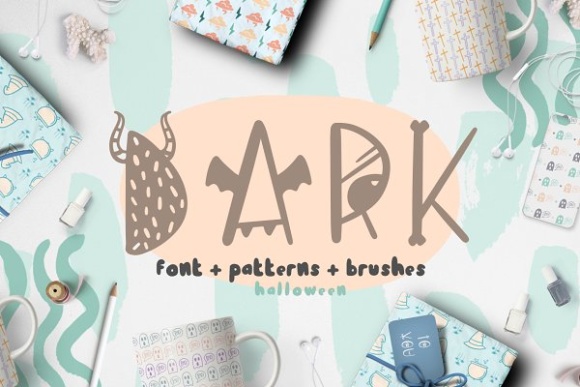
Dark Font: The Ultimate Companion for a Spooktacular Halloween
October is finally here, and we all know what that means: Halloween! The spookiest and most thrilling time of the year is just around the corner, and what better way to get into the spirit than with a font that’s as dark and playful as the holiday itself? Introducing Dark Font, a playful and personality-packed typeface that’s perfect for creating eerie, yet fun and festive designs.
What is Dark Font?
Dark Font is a unique and creative typeface that’s designed to bring a touch of darkness and whimsy to your designs. With its bold and edgy aesthetic, this font is perfect for creating eye-catching and memorable designs that are sure to stand out. Whether you’re designing a spooky Halloween poster, a creepy flyer, or a haunted website, Dark Font is the perfect companion to help you set the mood.
Amazing Features of Dark Font
- Playful and Personality-Packed: Dark Font is designed to bring a touch of playfulness and personality to your designs. With its bold and edgy aesthetic, this font is perfect for creating eye-catching and memorable designs.
- Amazing Patterns: Dark Font comes with a range of amazing patterns that are perfect for adding a touch of texture and interest to your designs. From spooky cobwebs to creepy crawlies, these patterns are sure to add an extra layer of depth and visual interest to your designs.
- Illustrator Brushes: Dark Font also comes with a range of Illustrator brushes that are perfect for adding a touch of whimsy and creativity to your designs. With these brushes, you can create everything from spooky silhouettes to creepy critters.
- Doodle Font: And if that’s not enough, Dark Font also comes with a doodle font that’s perfect for adding a touch of playfulness and personality to your designs. With this font, you can create everything from quirky headings to fun and playful text.
Why Choose Dark Font?
So why choose Dark Font for your Halloween designs? Here are just a few reasons why this font is the perfect choice:
- Unique and Creative: Dark Font is a unique and creative typeface that’s designed to help you stand out from the crowd. With its bold and edgy aesthetic, this font is perfect for creating eye-catching and memorable designs.
- Easy to Use: Dark Font is easy to use and comes with a range of features that make it simple to get started. Whether you’re a seasoned designer or just starting out, this font is perfect for anyone looking to add a touch of darkness and whimsy to their designs.
- Perfect for Halloween: Dark Font is specifically designed with Halloween in mind. With its spooky and playful aesthetic, this font is perfect for creating designs that are sure to get you in the mood for the holiday.
Design Tips for Using Dark Font
Here are a few design tips to help you get the most out of Dark Font:
- Experiment with Patterns: Dark Font comes with a range of amazing patterns that are perfect for adding a touch of texture and interest to your designs. Experiment with different patterns to find the one that works best for your design.
- Use Illustrator Brushes: Dark Font’s Illustrator brushes are perfect for adding a touch of whimsy and creativity to your designs. Use these brushes to create everything from spooky silhouettes to creepy critters.
- Mix and Match Fonts: Dark Font comes with a range of fonts, including a doodle font. Mix and match different fonts to create a unique and creative look that’s all your own.